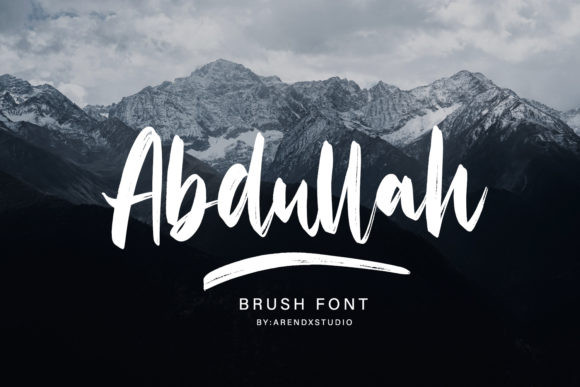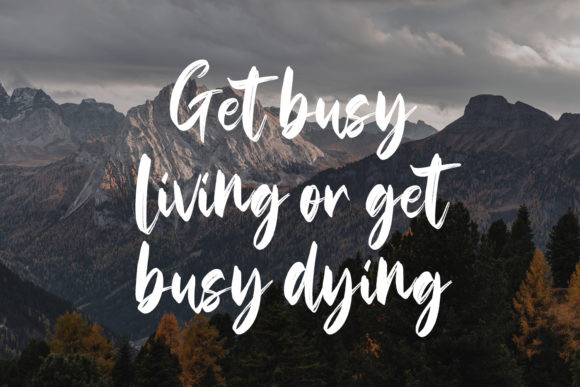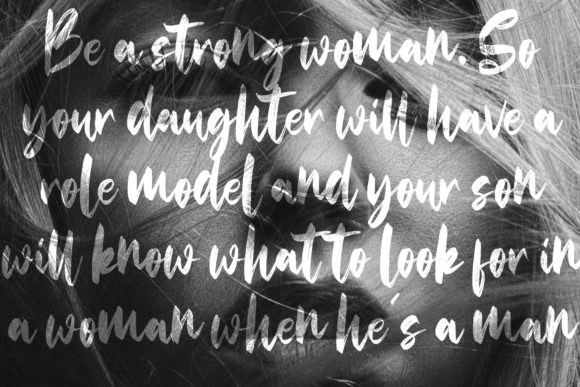
Abdullah Font
Abdullah features distinct handwriting which gives this unique script font an organic and natural vibe. Fall in love with its unique style!